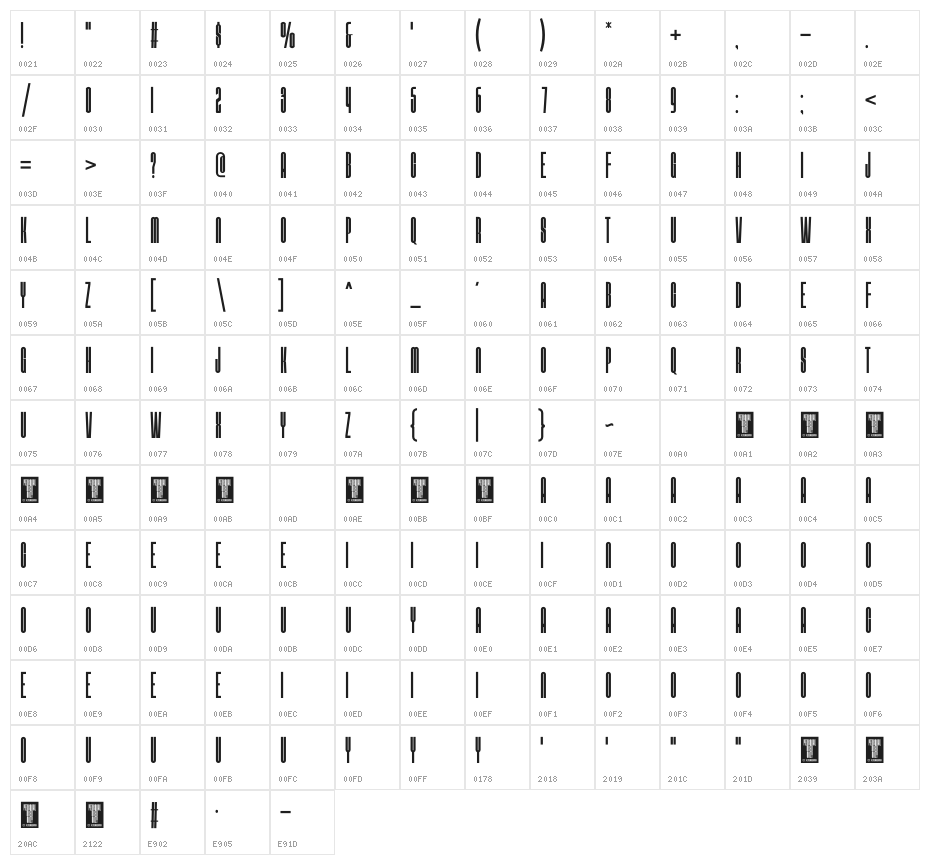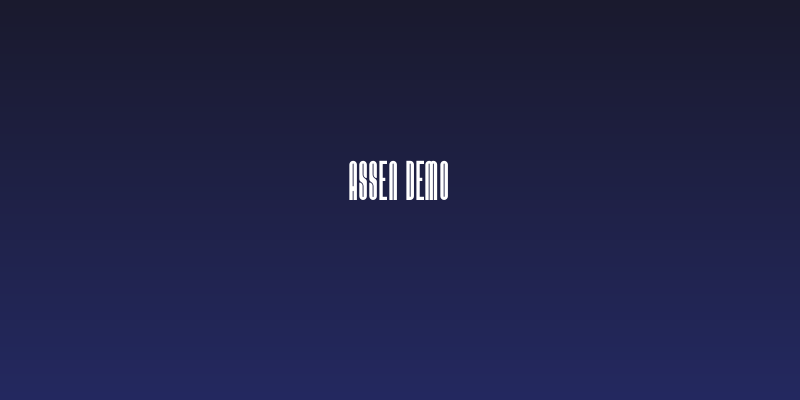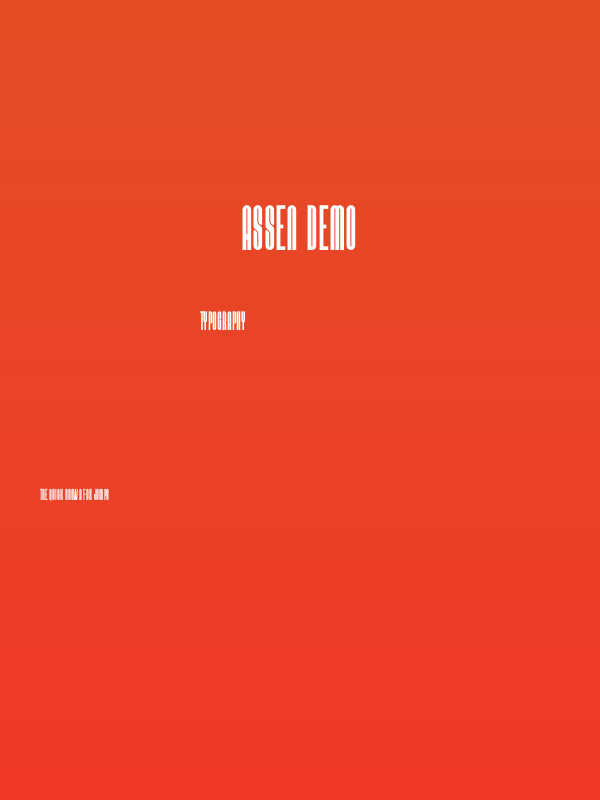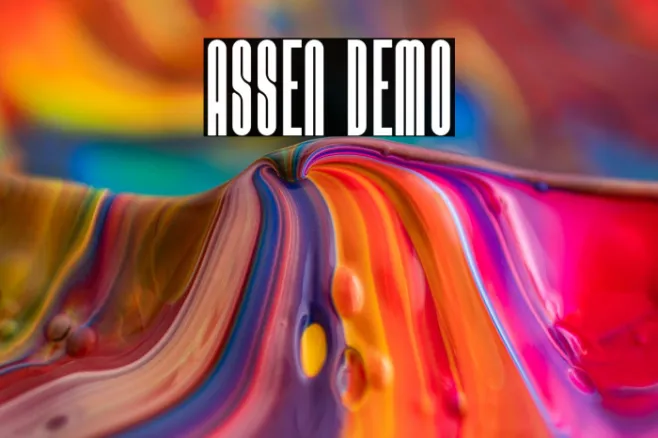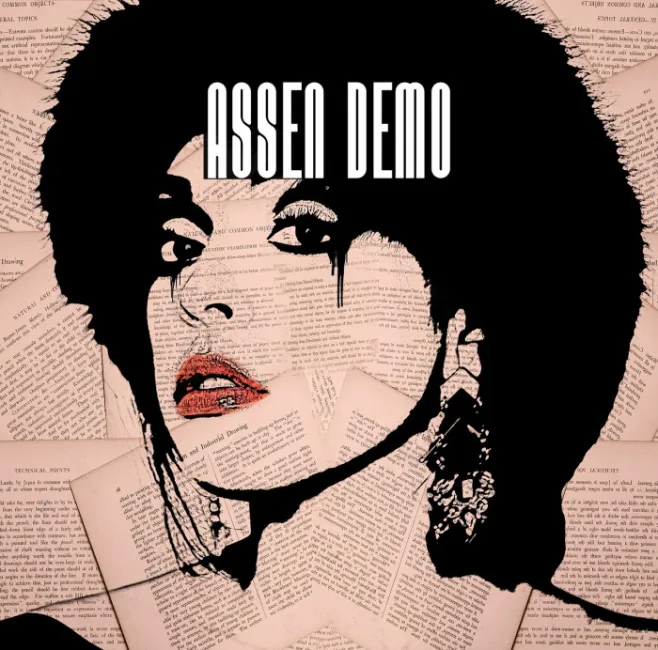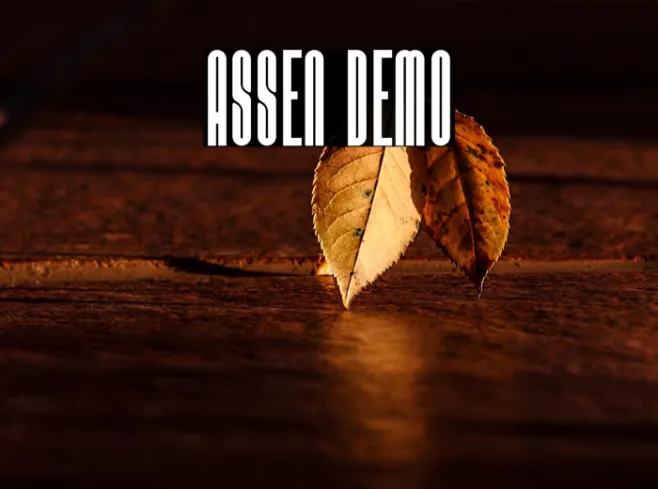
Assen Demo Font
Assen Demo Description
This font features a striking and bold design with tall, narrow characters that create a strong visual impact. The uppercase letters are particularly elongated, giving the typeface a sense of height and elegance. The lowercase letters maintain the same narrow structure, ensuring consistency throughout the text. Numbers and special characters are designed to match the overall style, with clean lines and a modern aesthetic. The font's unique appearance makes it ideal for projects that require a bold statement, such as posters, headlines, and branding materials.
| Proposed Projects | Ideal for posters, headlines, branding, and any project needing a bold statement. |